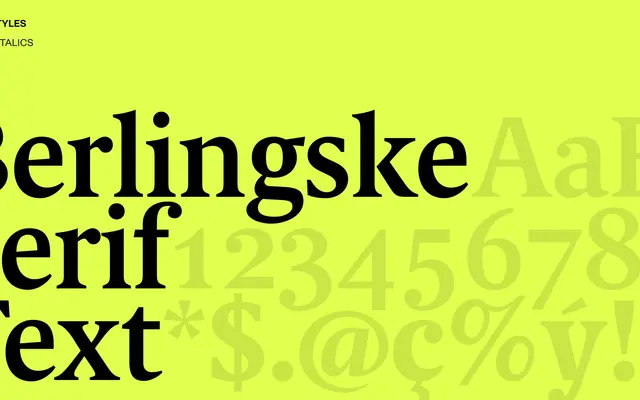
Berlingske Serif Text
Berlingske Serif Text specimen from Playtype
A text-optimised serif from Playtype, designed for extended reading in editorial and publishing contexts.
Part of the broader Berlingske type system, this text-cut serif is drawn for body copy and smaller sizes where legibility and rhythm matter most. The name suggests Scandinavian editorial heritage, likely connected to Danish newspaper culture. Suited to long-form print and digital editorial work.
Named 'Text' variant of a serif family intended for body copy use, suggesting a traditional text serif optimised for extended reading at smaller sizes.